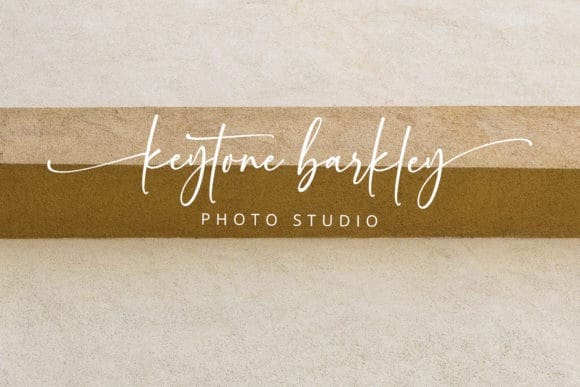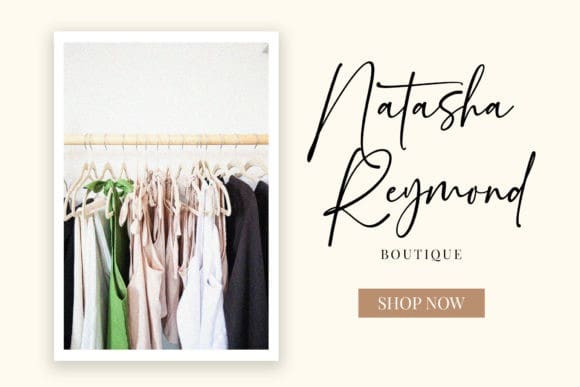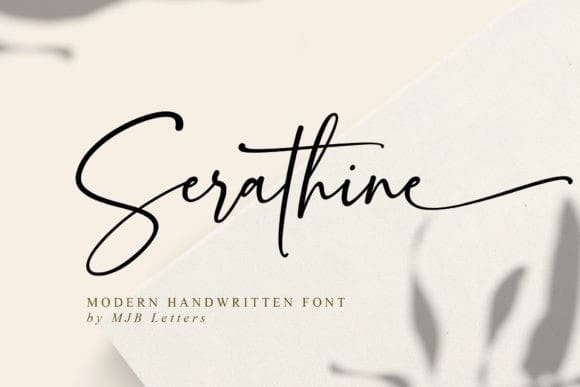
Serathine Handwritten Font
Serathine Handwritten Font is a modern handwritten script, ideal for wedding stationery, logo design, watermarks, branding design, websites, social media, marketing, and more! Serathine is PUA encoded which means you can access all of the glyphs and swashes with ease!